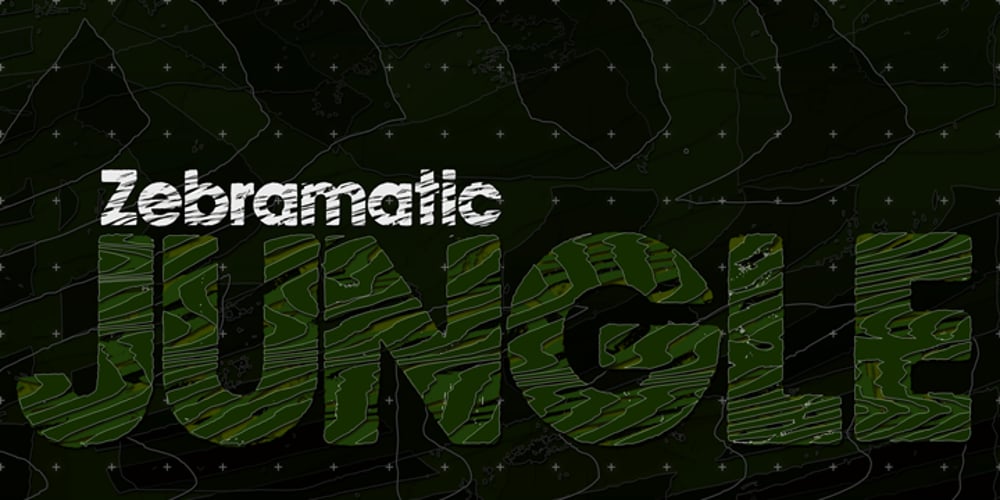
Zebramatic Font Family was designed by Harald Geisler and published by Harald Geisler. Zebramatic contains 3 styles and family package options. Zebramatic – A Lettering Safari Zebramatic is a font for editorial design use, to create headlines and titles in eye-catching stripes. Constructed to offer flexible and a variety of graphical possibilities, Zebramatic type is easy to use. The font is offered in three styles: POW, SLAM and WHAM. These styles work both as ready-made fonts and as patterns to create unique, individualized type. The font design’s full potential is unleashed by layering glyphs from two or all three styles in different colors or shades. Working with the different styles I was reminded of the late Jackson Pollock poured paintings—in particular the documentation of his painting process by Hanz Namuth and Paul Falkernburg in the film Jackson Pollock 51. In Pollock’s pictures the complex allure arises from how he layered the poured and dripped paint onto the canvas. Similar joyful experience and exciting results emerge by layering the different styles of Zebramatic type. Texture In the heart of the Design is Zebramatics unique texture. It is based on an analog distorted stripe pattern. The distortion is applied to a grade that makes the pattern complex but still consistent and legible. You can view some of the initial stripe patterns in the background of examples in the Gallery. Zebramatic POW, SLAM and WHAM each offer a distinct pallet of stripes—a unique zebra hide. POW and WHAM use different distortions of the same line width. SLAM is cut from a wider pattern with thicker stripes. The letter cut and kerning is consistent throughout styles. Design Concept Attention-grabbing textured or weathered fonts are ideal for headlines, ads, magazines and posters. In these situations rugged individuality, letter flow, and outline features are magnified and exposed. Textured fonts also immediately raise the design questions of how to create alignment across a word and deal with repeated letters. Zebramatic was conceived as an especially flexible font, one that could be used conveniently in a single style or by superimposing, interchanging and layering styles to create a unique type. The different styles are completely interchangeable (identical metrics and kerning). This architecture gives the typographer the freedom to decide which form or forms fit best to the specific project. Alignment and repetition were special concerns in the design process. The striped patterns in Zebramatic are carefully conceived to align horizontally but not to match. Matching patterns would create strong letter-pairs that would “stick out” of the word. For example, take the problematic word “stuff”. If Zebramatic aligned alphabetically, the texture of S T and U would align perfectly. The repeated F is also a problem. Imagine a headline that says »LOOK HERE«. If the letters OO and EE have copied »unique« glyphs – the headline suggests mass production, perhaps even that the designer does not care. Some OpenType features can work automatically around such disenchanting situations by accessing different glyphs from the extended glyph-table. However these automations are also repeated; the generated solutions become patterns themselves. Flip and stack To master the situation described above, Zebramatic offers a different programmatic practice. To eliminate alphabetic alignment, the letters in Zebramatic are developed individually. To avoid repetition, the designer can flip between the three styles (POW, SLAM, WHAM) providing three choices per glyph. Stacking layers in different sequences provides theoretical 27 (3*3*3) unique letterforms. A last variable to play with is color (i.e. red, blue, black). Images illustrating the layering potential of Zebramatic are provided in the Gallery. The design is robust and convenient. The font is easily operated through the main font panel (vs. the hidden sub-sub-menu for OpenType related features). The process of accessing different glyphs is also applicable in programs that do not support OpenType extensively (i.e. Word or older Versions of Illustrator). International Specs Zebramatic is ready for your international typographic safari. The font contains an international character set and additional symbols – useful in editorial and graphic design. The font comes in OpenType PostScript flavored and TrueType Format.